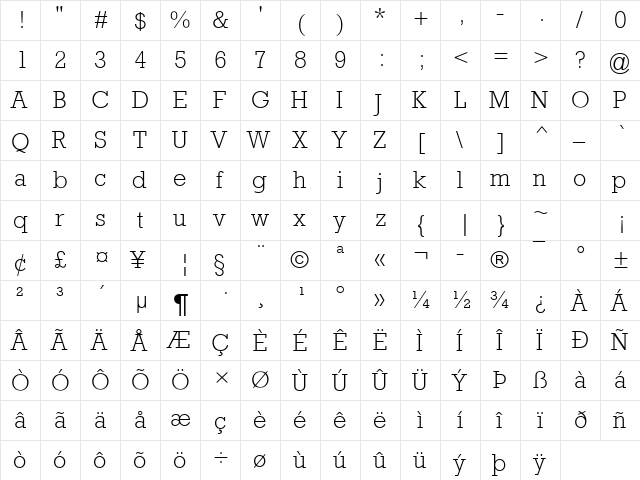
Rockwell MT Light Regular
Design Context for Rockwell MT Light Typeface
Rockwell MT Light offers clean, dependable letterforms without strong stylistic allegiance, making it a practical choice for designers who need flexibility. Its slender proportions lend an understated elegance to any composition.